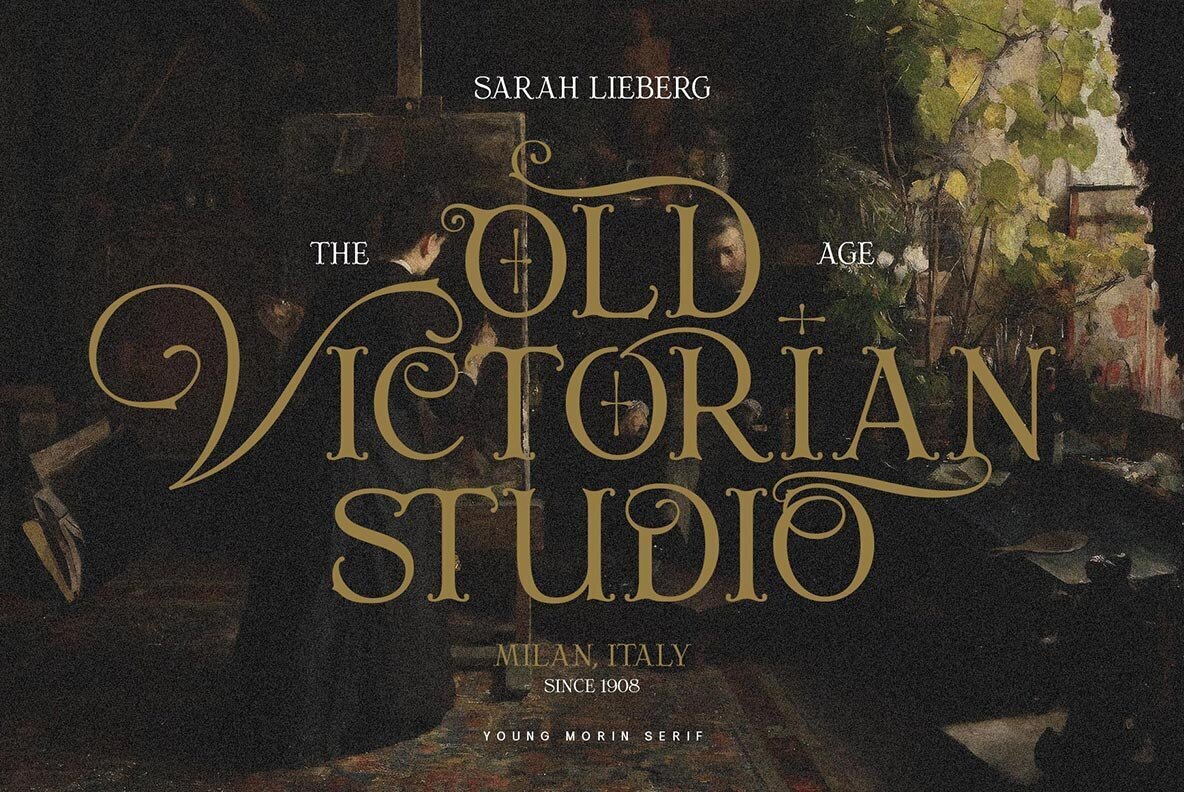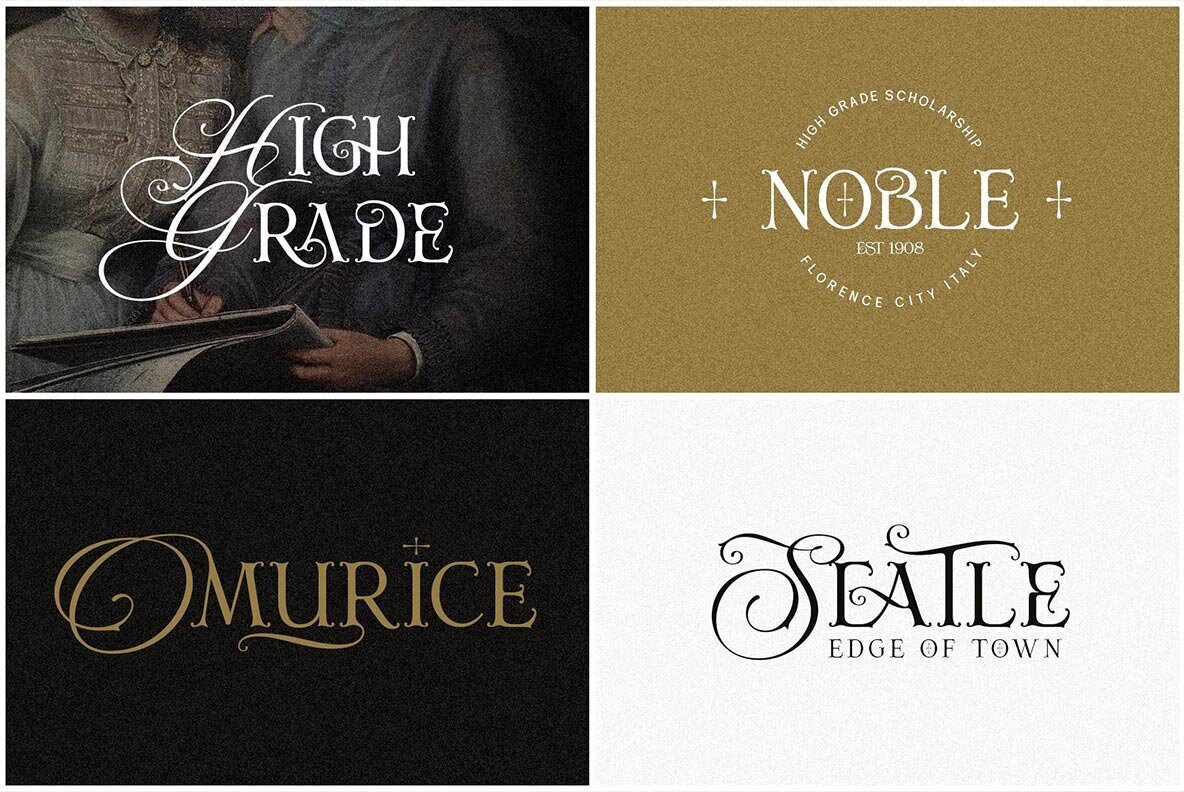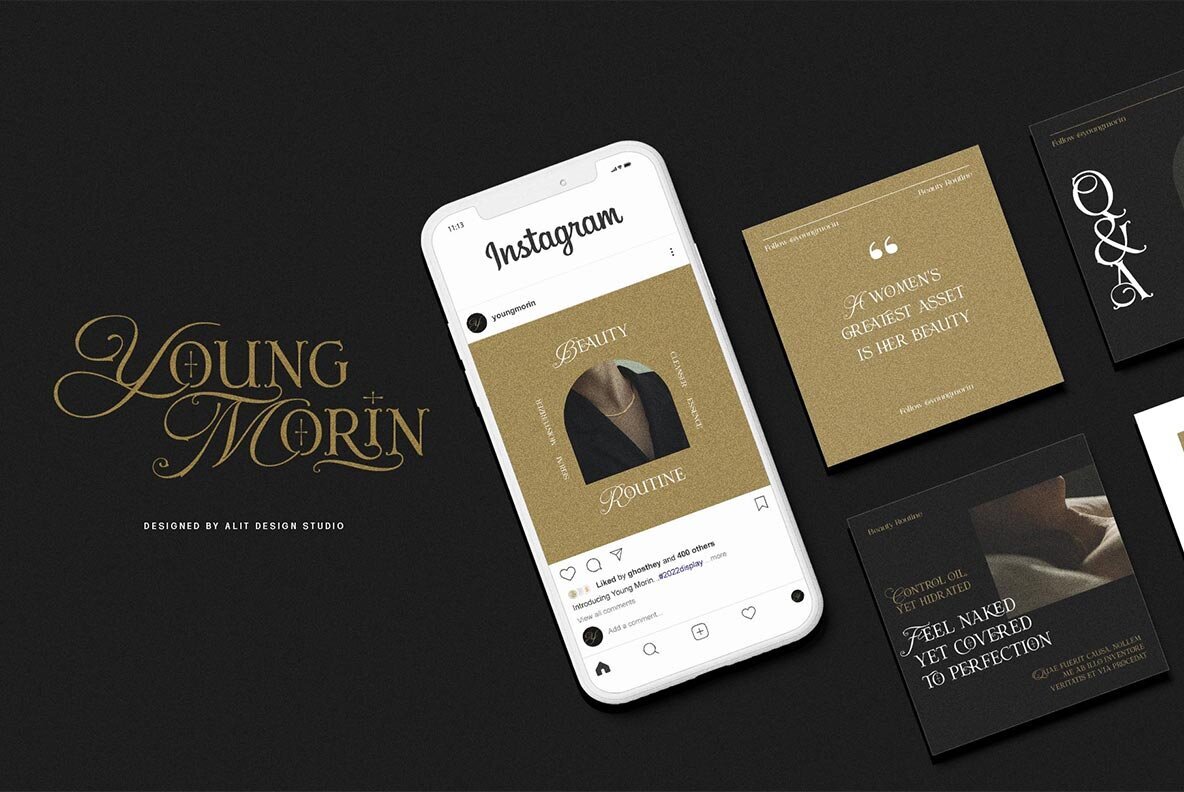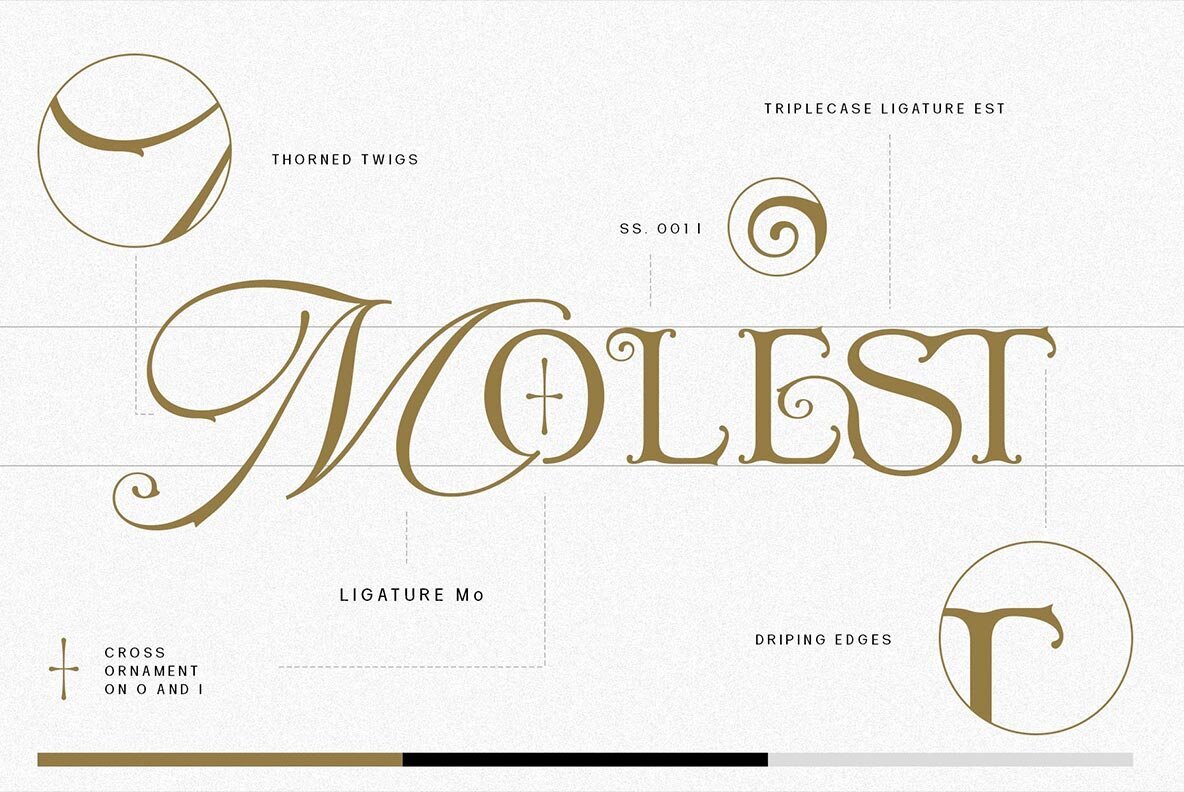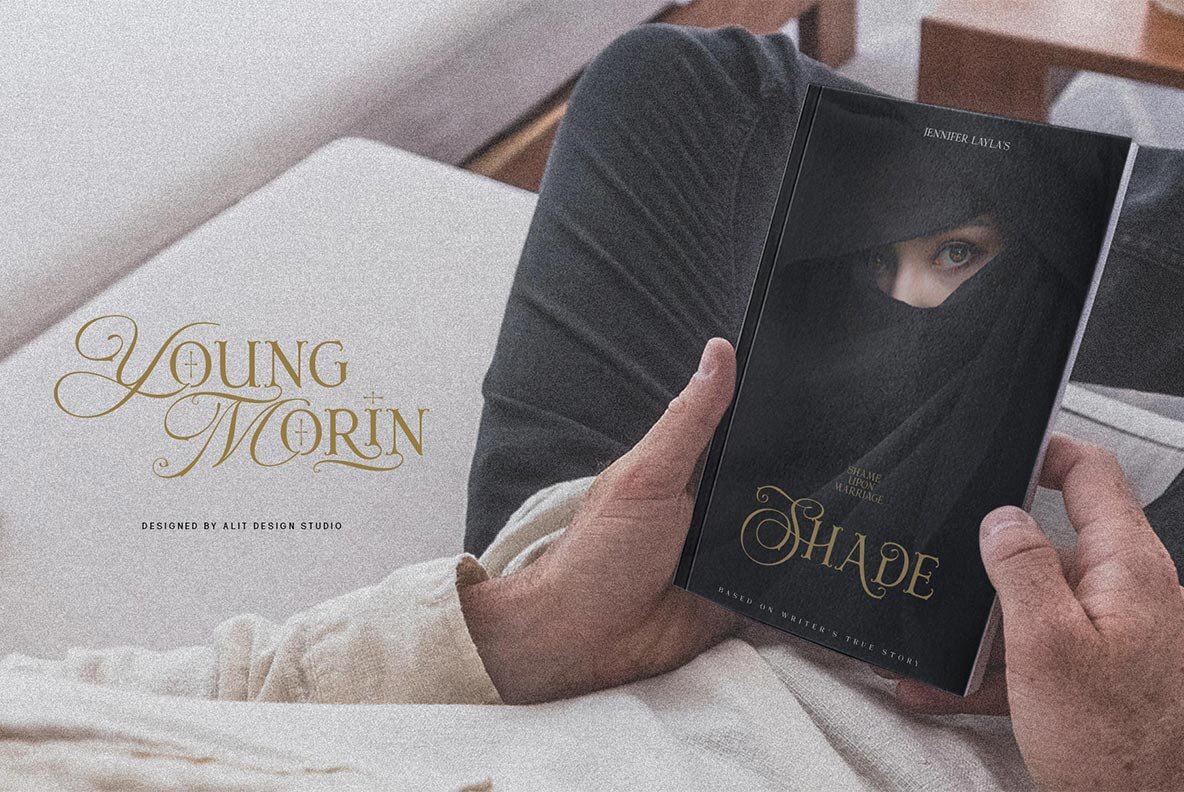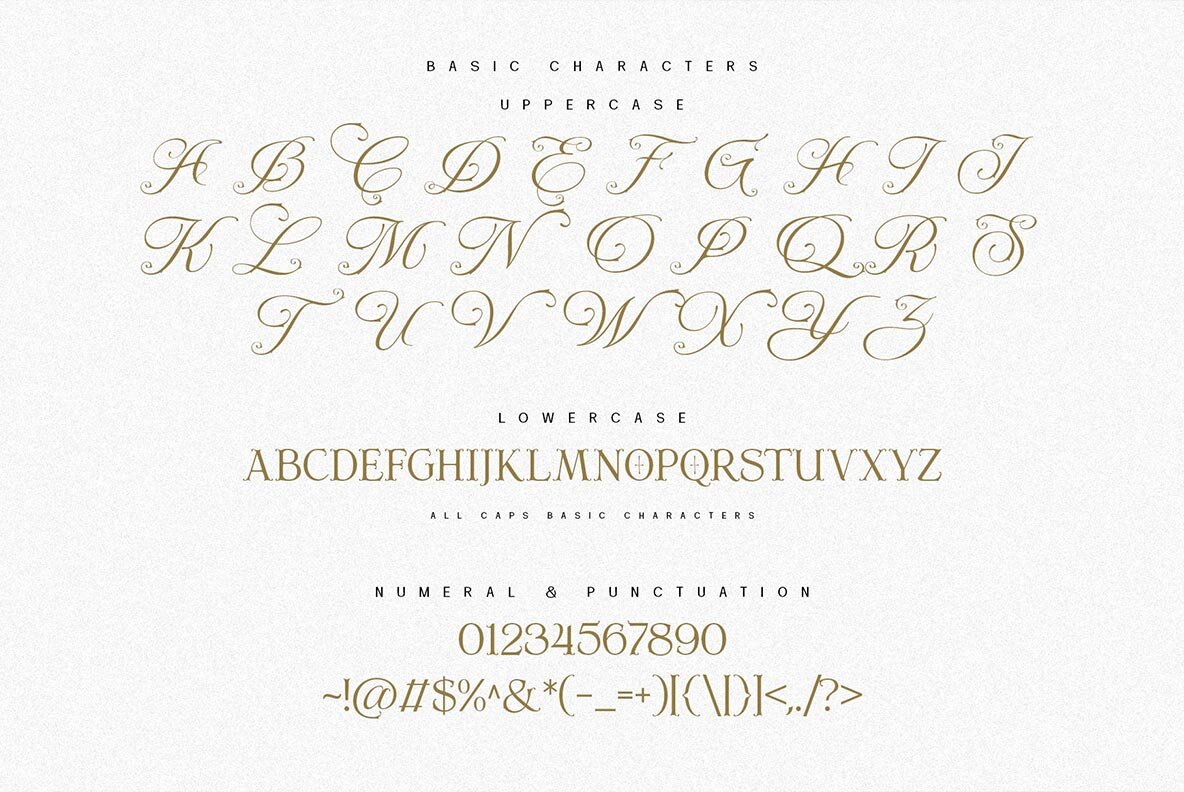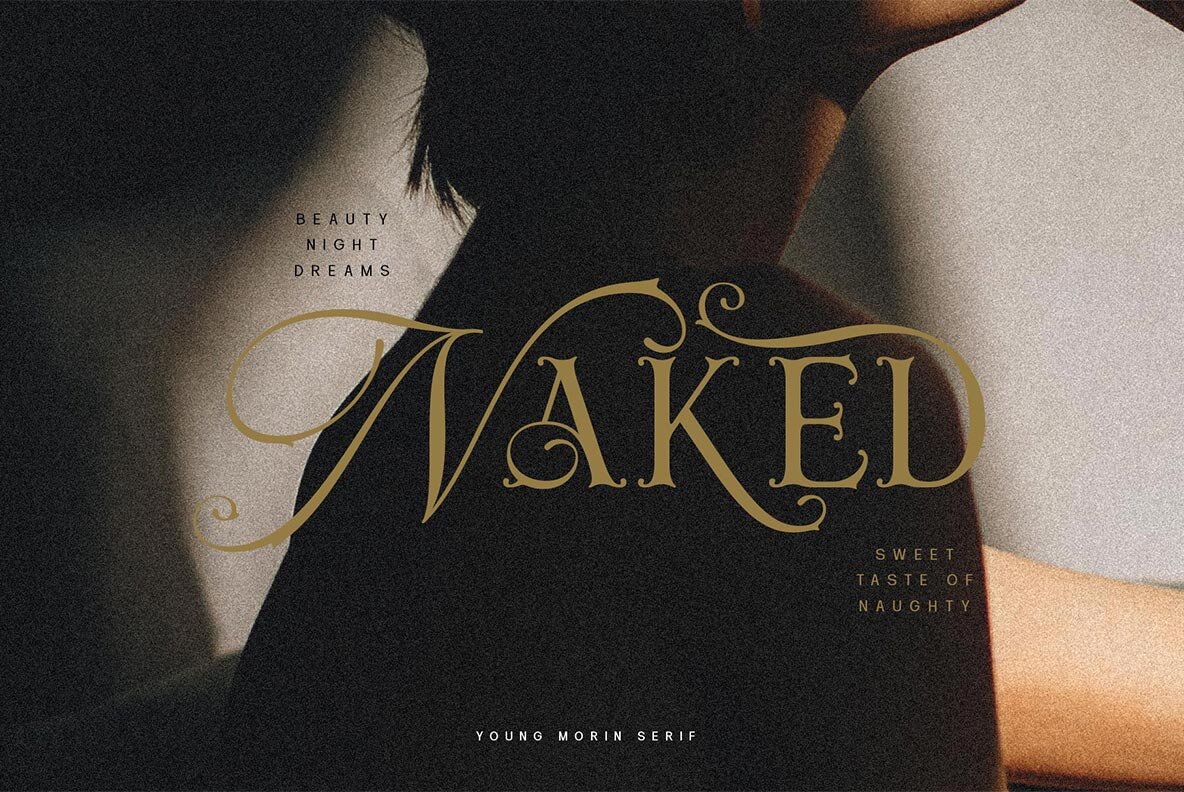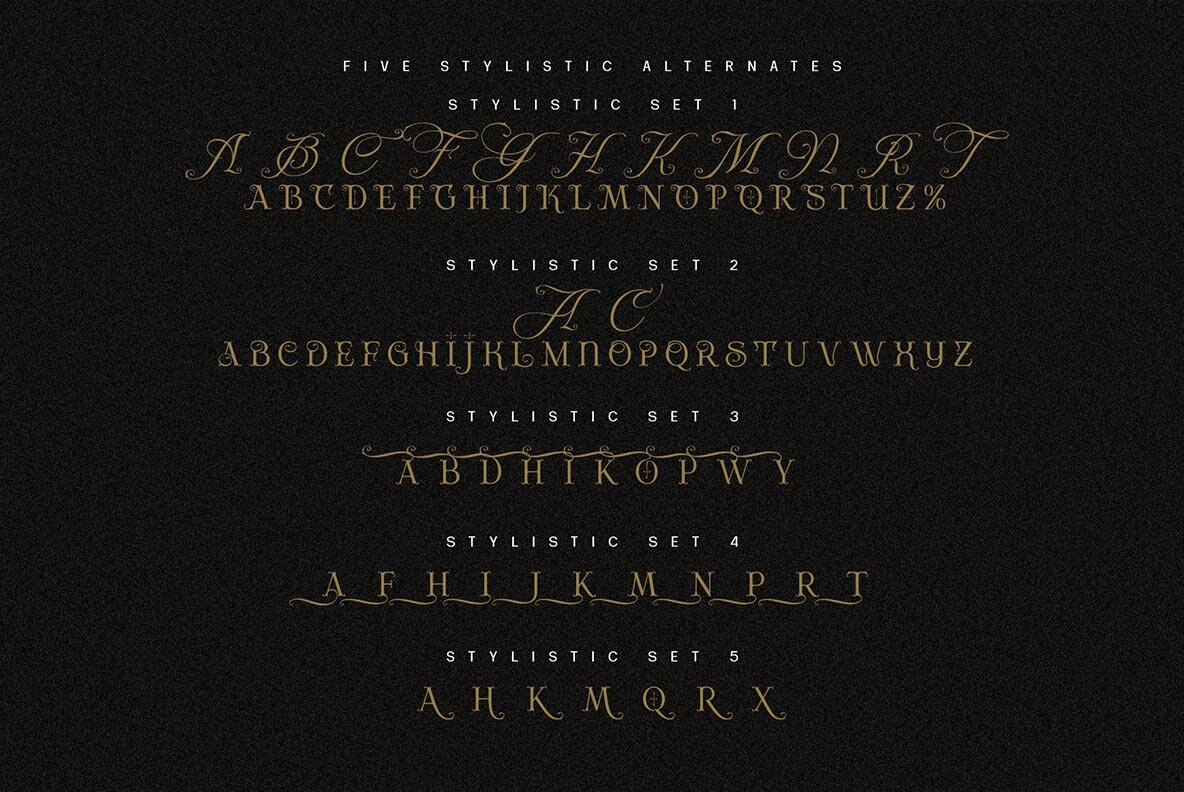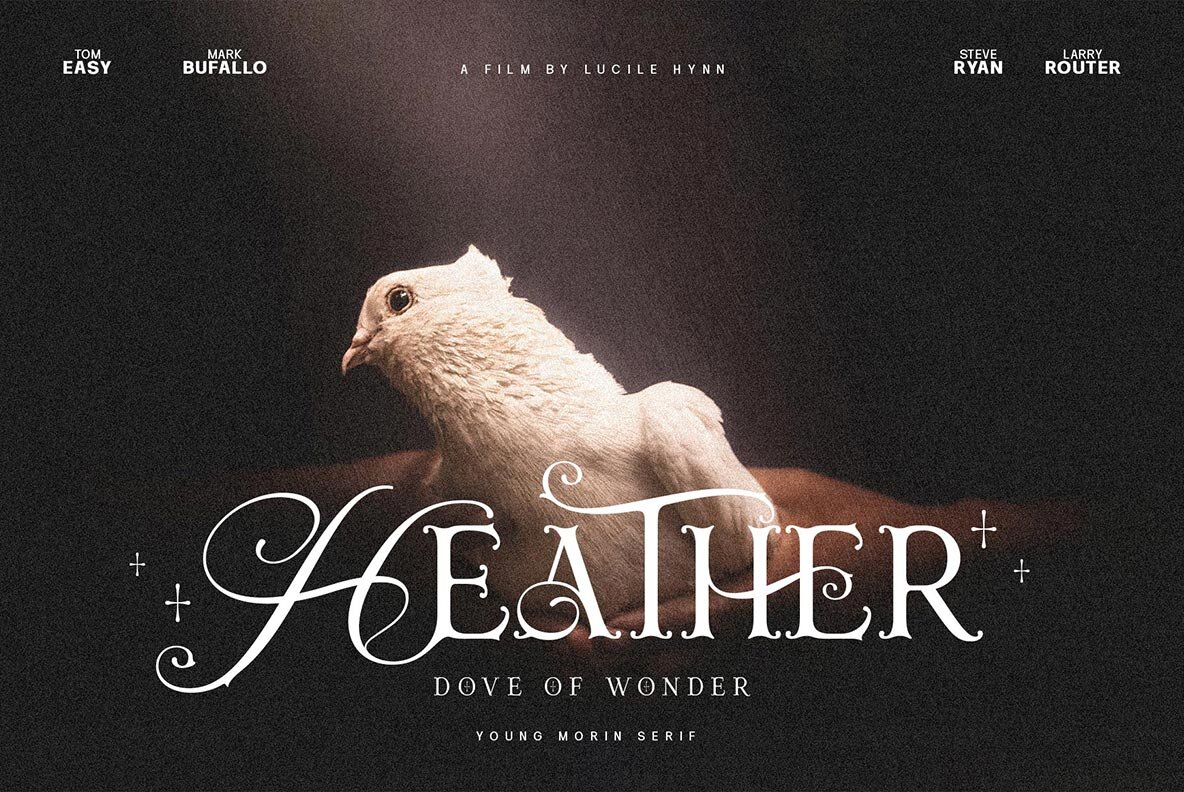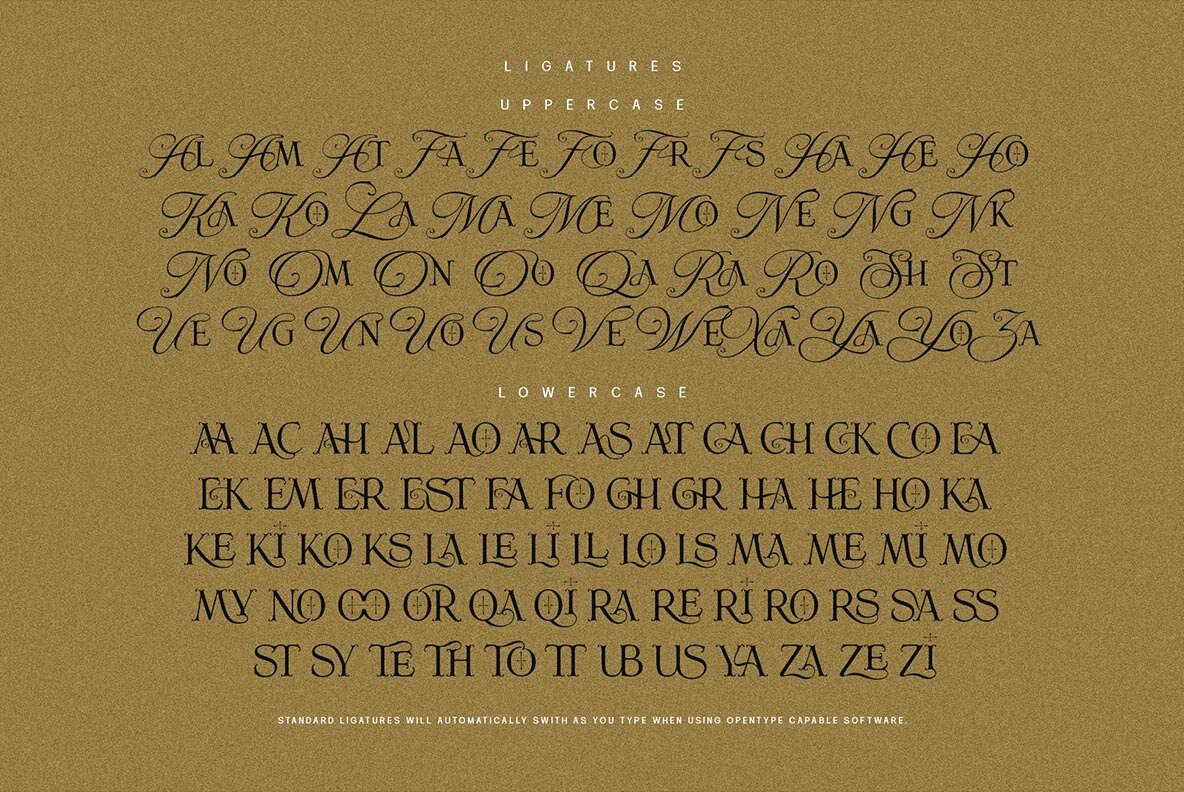
Young Morin Font
Young Morin Regular
Young Morin by Alit Suarnegara brings a sophisticated blend of script and classic serif styles, inspired by traditional Roman designs with a contemporary twist. This font offers a bold and striking aesthetic that remains refined and elegant, appealing to young creatives eager to stand out with a unique design approach. Suitable for projects like magazine covers, brochures, and digital ads, Young Morin is both modern and daring. With a generous offering of 660 glyphs, Young Morin includes various alternative options to personalize and enhance designs. The font supports Latin, Basic, Western and Central European, South European, and Vietnamese languages. While optimized for programs with OpenType features, such as Adobe Illustrator and Corel Draw, Young Morin is versatile enough for any software, thanks to PUA Unicode support.Young Morin: A Classic Script Font with Modern Elegance